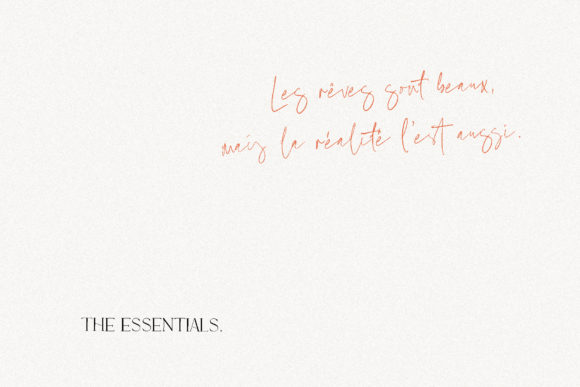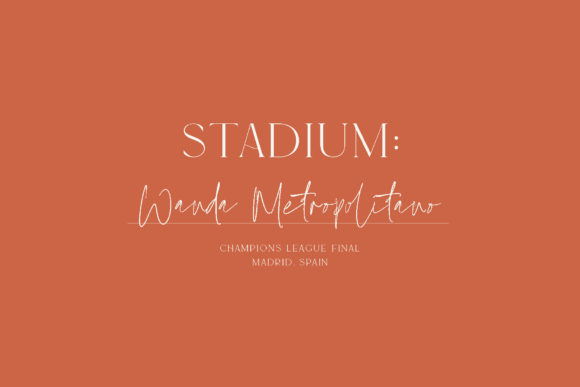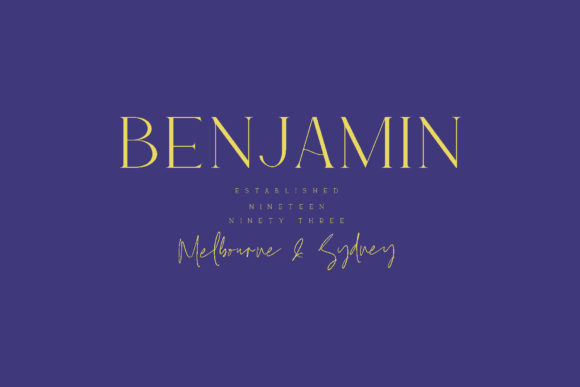
Introduction to Marion & the Essentials Font
Have you ever stared at a blank page, your mind racing with creative ideas, yet struggling to bring them to life? That’s where the magic of Marion & the Essentials Font comes in – a stunning duo that combines the effortless charms of two distinct fonts, turning any design project into a true standout. Whether you’re working on a high-quality brochure, a website, or a social media campaign, this versatile font pair is sure to elevate your design to new heights.
Key Features of Marion & the Essentials Font
- High-quality font designed for creative projects, suitable for various design applications.
- Includes 5 fonts with 7 styles, offering a versatile design resource for your projects.
- Unique characteristics include elegant and modern typography, perfect for branding and design projects.
Honest Review: Marion & the Essentials Font
I recently stumbled upon the Marion & the Essentials Font, and I must say it’s a fantastic addition to any designer’s toolkit. This high-quality font is perfect for creative projects that require a clean and modern aesthetic. The transparent background makes it easy to overlay on top of images or use as a standalone design element.
What I love about this font is its versatility. It’s perfect for headings, titles, and even body text. The font is highly legible, making it suitable for a wide range of design applications.
One thing to note is that the font is a bit limited in terms of character set and language support. However, for most design applications, this shouldn’t be a major issue.
Overall, I’m thoroughly impressed with the Marion & the Essentials Font. It’s a great addition to any designer’s toolkit, and I highly recommend it for anyone looking for a high-quality, modern font.
Marion & the Essentials Font is suitable for a variety of design projects, including branding, packaging, and editorial design. Its transparent background makes it easy to use on any background color or image.